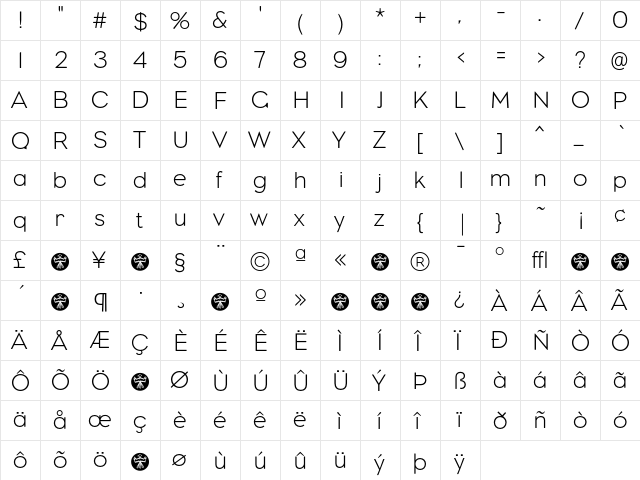
Eagle Light
Design Context for Eagle Typeface
Eagle takes a measured approach to typography — its balanced proportions and neutral character make it a reliable workhorse for both digital and print work. Its slender proportions lend an understated elegance to any composition.